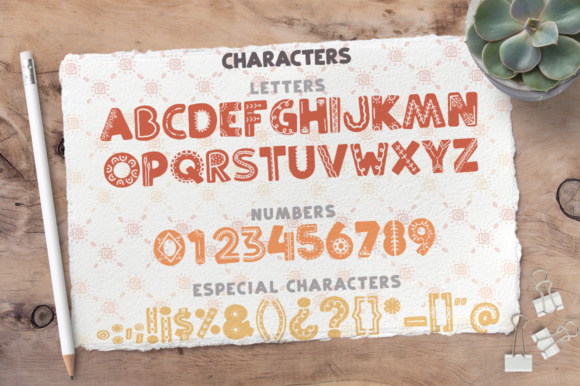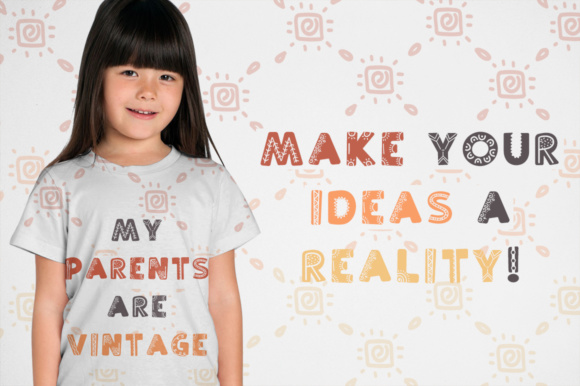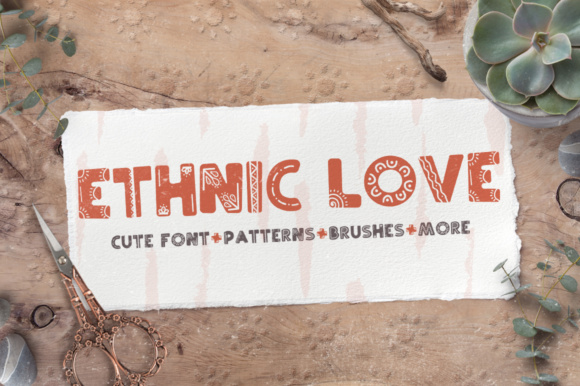
Introducing Ethnic Love Font: A Unique and Creative Typeface
Are you tired of using the same old fonts in your designs? Look no further than the Ethnic Love Font, a new and exciting typeface that is sure to add a touch of personality to your work. This font is not just a collection of letters and numbers, but a comprehensive design package that includes beautiful patterns, awesome illustrator brushes, and unique decorative circles.
What is Ethnic Love Font?
The Ethnic Love Font is a carefully crafted typeface that is inspired by the rich cultural heritage of ethnic designs from around the world. It is a font that is meant to evoke a sense of warmth, love, and connection to one’s roots. The font comes with a wide range of characters, including letters, numbers, and punctuation marks, all of which are designed to work seamlessly together to create a cohesive and visually appealing look.
Key Features of Ethnic Love Font
So, what sets the Ethnic Love Font apart from other fonts on the market? Here are just a few of its key features:
- Beautiful Patterns: The Ethnic Love Font comes with a range of beautiful patterns that can be used to add texture and interest to your designs. From intricate geometric patterns to delicate floral motifs, these patterns are sure to inspire your creativity.
- Unique Decorative Circles: One of the standout features of the Ethnic Love Font is its set of unique decorative circles. These circles can be used to add a touch of elegance and sophistication to your designs, and can be customized to fit your specific needs.
Who is Ethnic Love Font for?
The Ethnic Love Font is perfect for designers, crafters, and artists who are looking to add a touch of personality and uniqueness to their work. Whether you’re working on a branding project, creating a craft tutorial, or designing a social media graphic, this font is sure to help you stand out from the crowd.
How to Use Ethnic Love Font
Benefits of Using Ethnic Love Font
So, why should you choose the Ethnic Love Font for your next design project? Here are just a few benefits of using this unique and creative typeface:
- Adds Personality to Your Designs: The Ethnic Love Font is a font that is full of personality, and is sure to add a touch of warmth and character to your designs.
- Stand Out from the Crowd: With its unique and creative design, the Ethnic Love Font is sure to help you stand out from the crowd and make your designs more memorable.
- Versatile: The font is versatile and can be used in a wide range of design projects, from branding and advertising to crafting and social media graphics.
In conclusion, the Ethnic Love Font is a unique and creative typeface that is sure to add a touch of personality and warmth to your designs. With its beautiful patterns, awesome illustrator brushes, and unique decorative circles, this font is perfect for designers, crafters, and artists who are looking to take their work to the next level. So why wait? Download the Ethnic Love Font today and start creating designs that are full of love and personality.